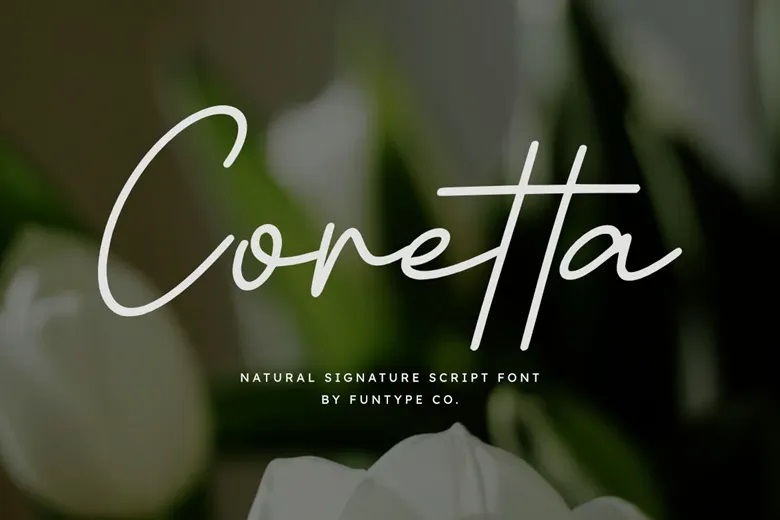
Coretta Font
Coretta is a signature script font that combines sophistication with a natural, personal feel. Its smooth, organic strokes and simple monoline design give your creative projects a professional look with a genuine sense of style. This font is a great option for designers who want their work to look both professional and eye-catching.
Coretta works well for photography watermarks, lifestyle branding, or wedding invitations, offering a mix of hand-drawn style and modern appeal.
Coretta Signature Script Font